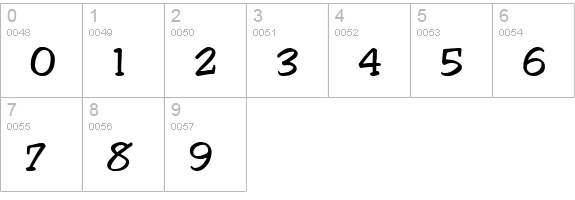
Courte Regular Font Details
Courte Regular is the standard, neutral variant in the Courte typeface family \xE2\x80\x94 well suited to general body text, paragraphs, and standard typographic work.
Courte Regular font is a versatile and elegant typeface that brings a touch of sophistication to any design project. With its clean lines and modern aesthetic, this font is perfect for creating professional documents, stylish branding, and eye-catching marketing materials. Whether you're designing a logo, website, or print materials, Courte Regular font will add a touch of class to your work. The best part is that Courte Regular font is available for free download at FontsMarket.com. You can easily access this high-quality typeface and elevate your design projects without any additional cost. Don't miss out on the opportunity to enhance your work with the timeless elegance of Courte Regular font, now conveniently available for free at FontsMarket.com.